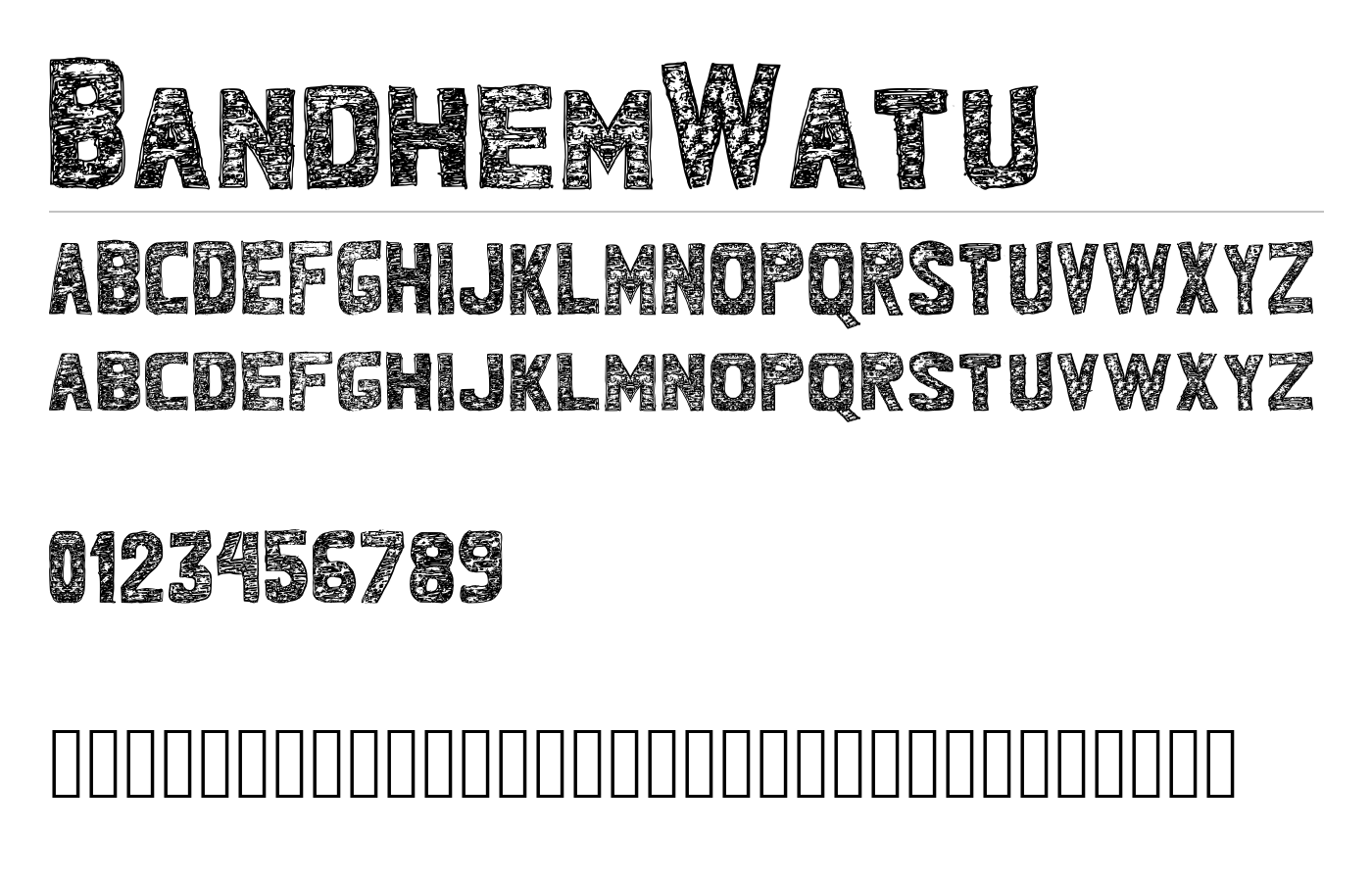
BandhemWatu is a bold, textured sans serif font characterized by its rough, hand-crafted appearance and irregular stroke patterns that give it a gritty, organic feel. Its strong presence and all-caps style make it ideal for eye-catching headlines, posters, or branding that seeks a raw, urban, or vintage vibe with a creative edge. This font works best in designs that want to convey energy and personality while standing out with a distinctive artistic flair.
BandhemWatu Font
About BandhemWatu Font